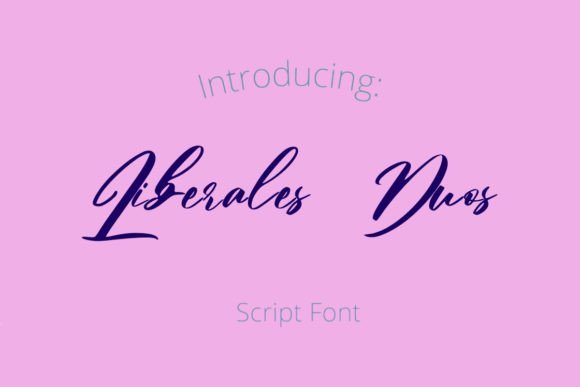
Introduction to Liberales Duos Font
The romantic and flourished details of this font create a sense of grandeur and allure, making it an excellent option for luxury brand logos, formal event invitations, and any design that aims to convey a sense of beauty and sophistication.
Key Features of Liberales Duos Font
- ✅ High quality design for professional projects
Why Choose Liberales Duos Font?
Liberales Duos Font offers exceptional quality and versatility, making it a valuable addition to your design toolkit. Whether you’re creating for personal projects or commercial use, Liberales Duos Font delivers professional results.